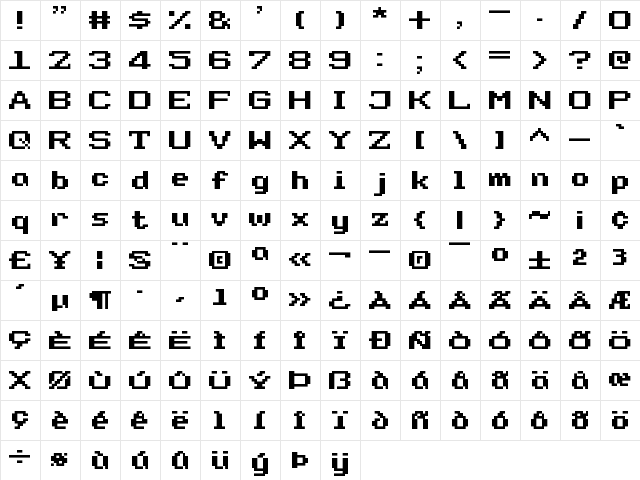
Super Legend Boy Regular
| Designer | GameDevDan |
Design Context for Super Legend Boy Typeface
Super Legend Boy is a composed and adaptable typeface that performs quietly and consistently across a wide range of design contexts.